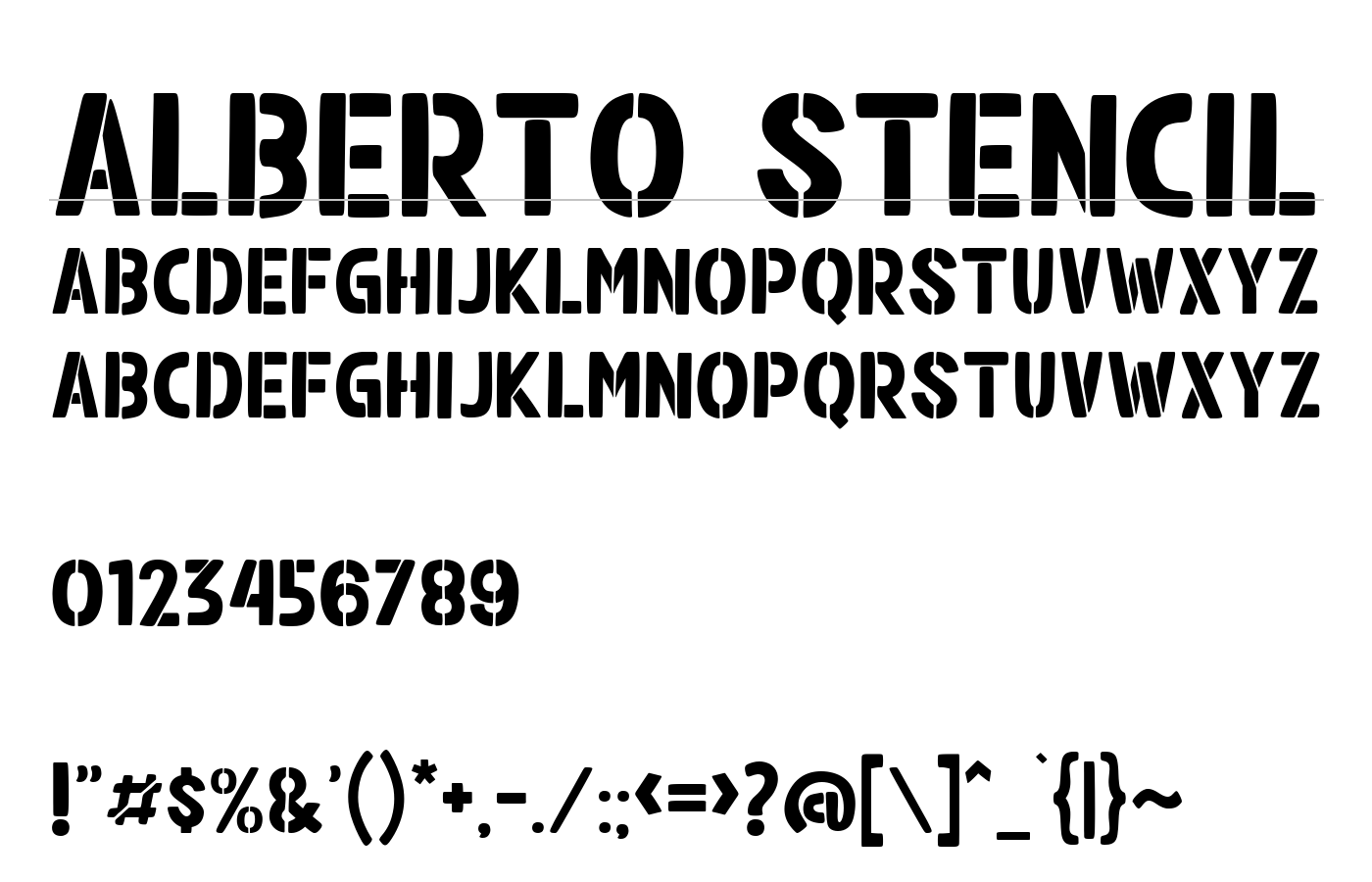
Alberto Stencil is a bold, condensed sans serif font with strong stencil cuts that give it a rugged and industrial feel. Its solid, high-contrast strokes combined with sharp, clean edges make it perfect for impactful headlines, logos, and branding that require a modern yet utilitarian look. This font shines in designs needing attention and clarity, especially in packaging, posters, and urban-themed projects.
Alberto Stencil Font